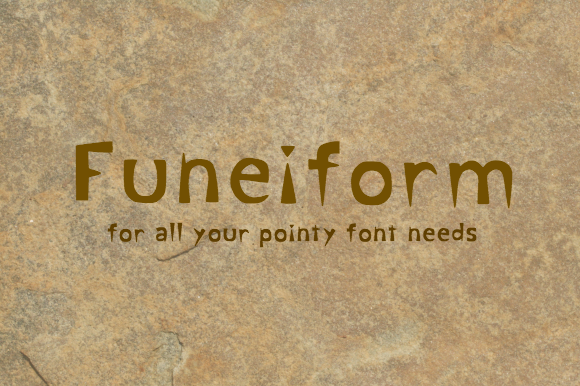
Funeiform Font
Prepare to be captivated by the captivating Funeiform font, a masterpiece crafted by the visionary Marlee Pagels. As a member of the esteemed display font family, Funeiform exudes an aura of sophistication and elegance.
This font is not just a collection of characters; it's an invitation to embark on a journey through time and discover the allure of ancient civilizations. With its sharp, pointy edges, Funeiform evokes the grandeur of cuneiform scripts, the ancestors of modern alphabets. Each letterform is meticulously designed to transport you to a bygone era, inspiring a sense of wonder and nostalgia.
Funeiform is not merely a font; it's a gateway to unlocking your creative potential. Whether you're crafting captivating logos, designing eye-catching invitations, or penning unforgettable stories, Funeiform will elevate your creations to new heights. Its versatility knows no bounds, adapting seamlessly to a myriad of design aesthetics, from retro to contemporary.
Embrace the allure of Funeiform and let your imagination soar. Join the ranks of discerning designers who appreciate the power of typography. With Funeiform, you'll not only create stunning visuals but also forge an unbreakable connection with your audience, leaving an enduring impression that will resonate for ages to come.